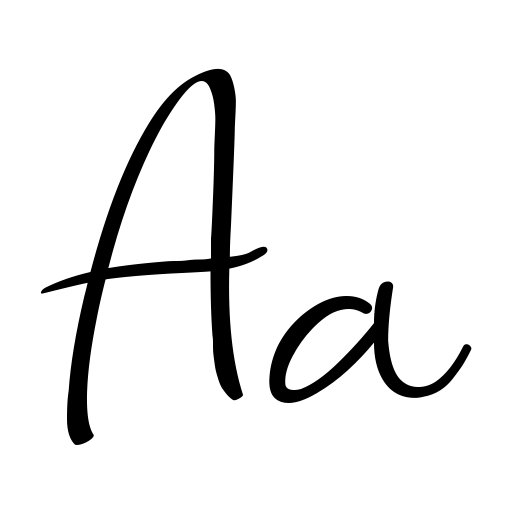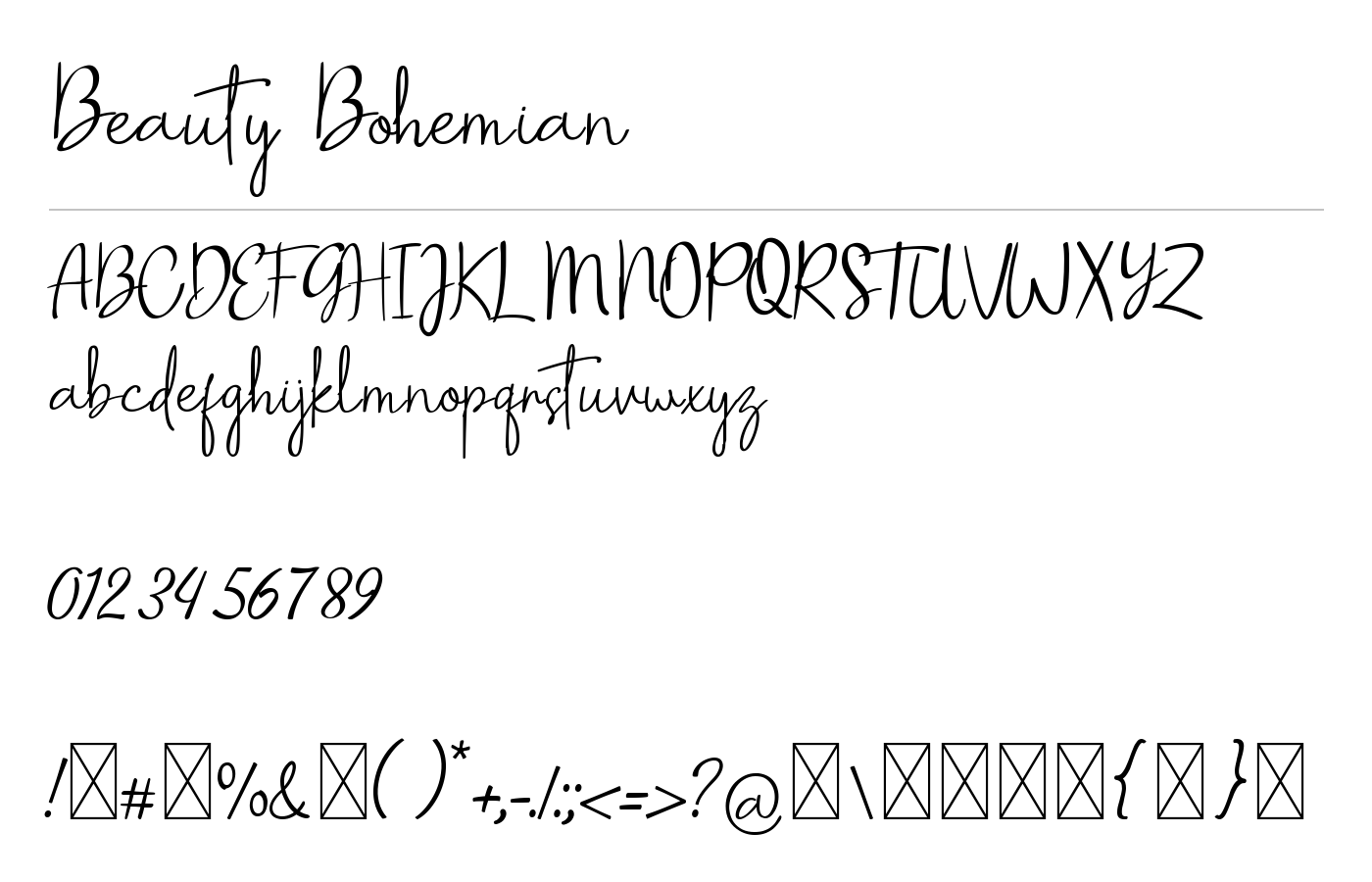
Beauty Bohemian is a delicate, handwritten script font with a tall, narrow structure that gives it an elegant and personal touch. Its light strokes and playful, slightly irregular letterforms make it ideal for creative branding, invitations, and lifestyle projects seeking a charming, bohemian vibe. This font works especially well where a friendly, artistic, and approachable look is desired, such as in fashion, beauty, and boutique design.
Beauty Bohemian Font
About Beauty Bohemian Font